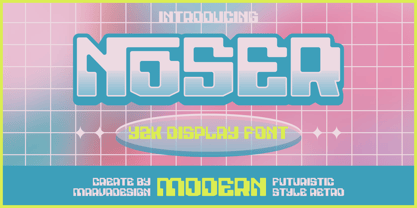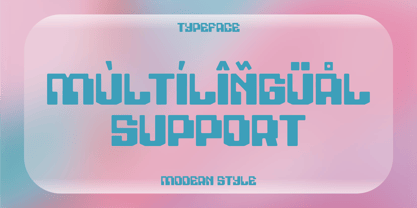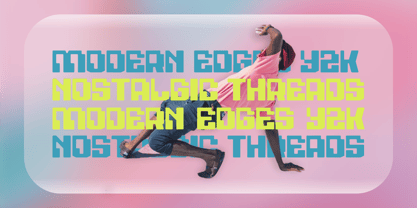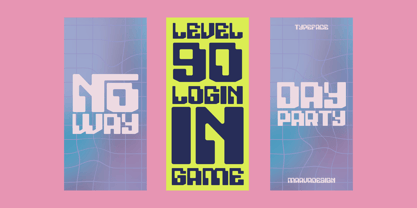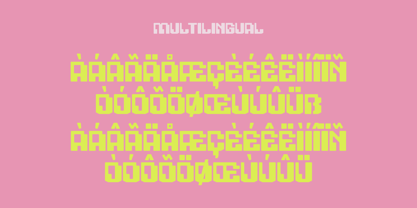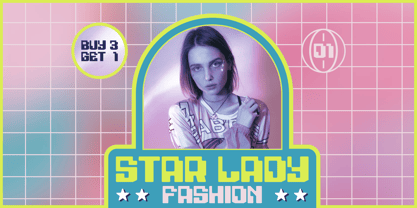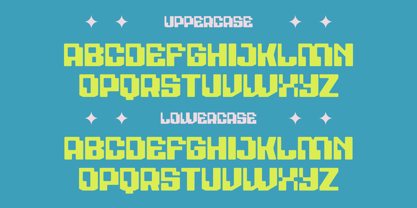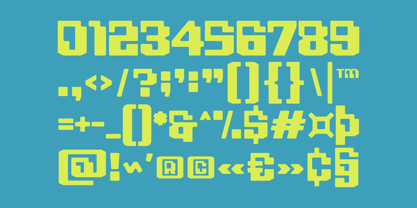
Noser
by Marvadesign
The Noser Font Family was designed by Febrie Setiawan and published by Marvadesign. Noser contains 1 styles. More about this family
Introducing Noser is a decorative typeface with a futuristic Y2K aesthetic, embodying a bold and avant-garde design. Its futuristic appearance is characterized by geometric forms and striking details, making it an excellent choice for projects that aim to capture the essence of modern innovation and retro-futuristic charm. Perfect for futuristic posters, retro-inspired magazine titles, and other creative applications, Noser offers a unique and captivating style that ensures your designs leave a lasting impression. Its versatile and distinctive character makes it a standout option for projects that blend nostalgia with forward-thinking design.
Designers: Febrie Setiawan
Foundry: Marvadesign